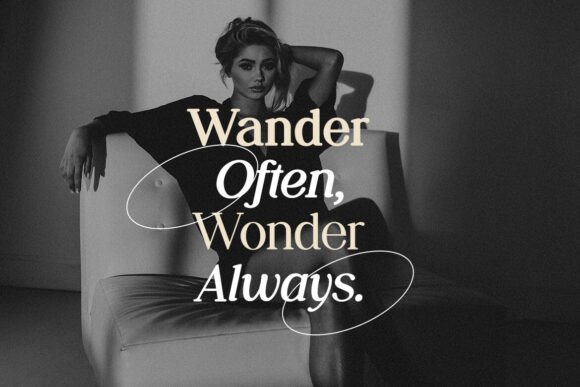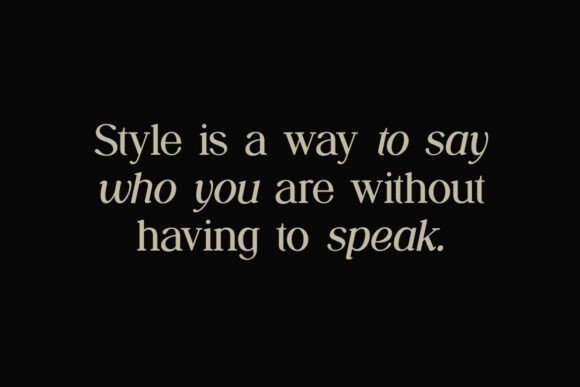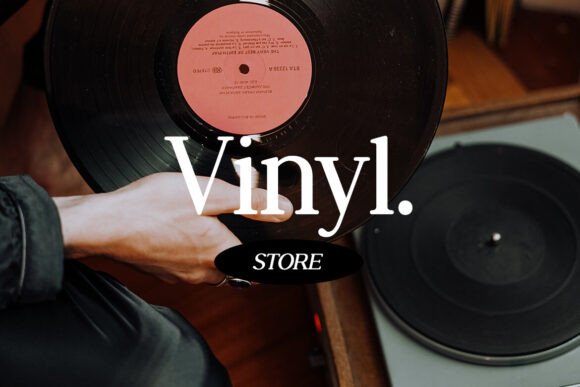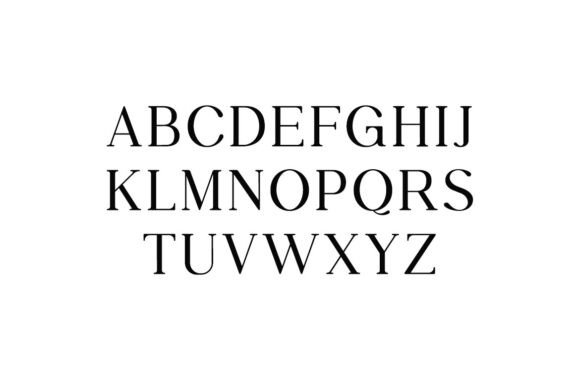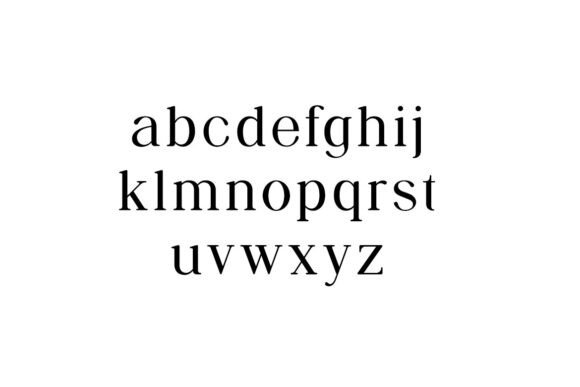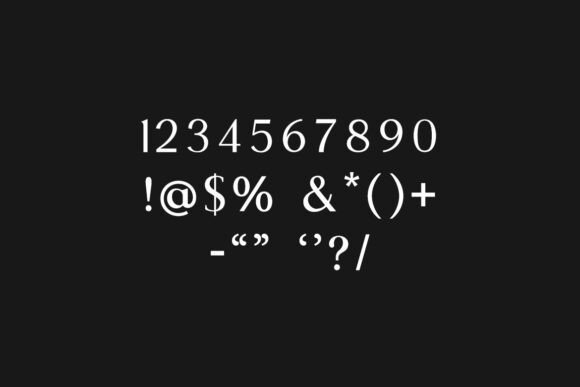
Introduction to Nostalgic Whispers Font
Nostalgic Whispers Retro Classic Serif Font.
The modern display font feels beautiful classy, elegant, and stylish This font is ideally suited for a wide variety of projects, such as signature, stationery, logo, wedding, typography quotes, magazine or book covers, website headers, branding, and more.
Key Features of Nostalgic Whispers Font